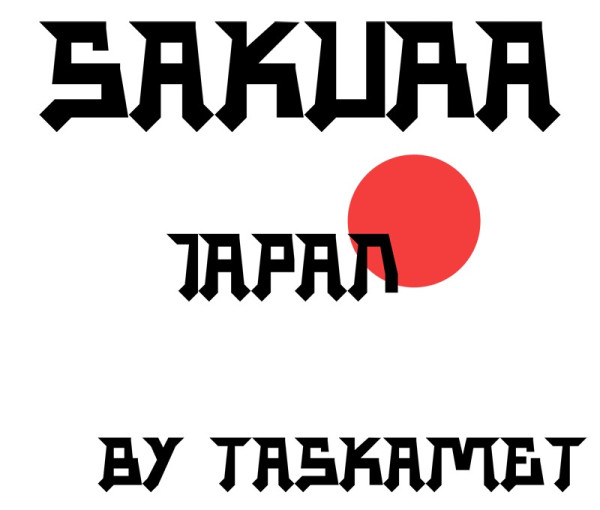
Sakura Font
Sakura Font, Perfectly fit for branding, logo, wedding things, greeting cards, fashion, lookbook, marketing promotion, anytime you want to look fancy elegant but still casual.